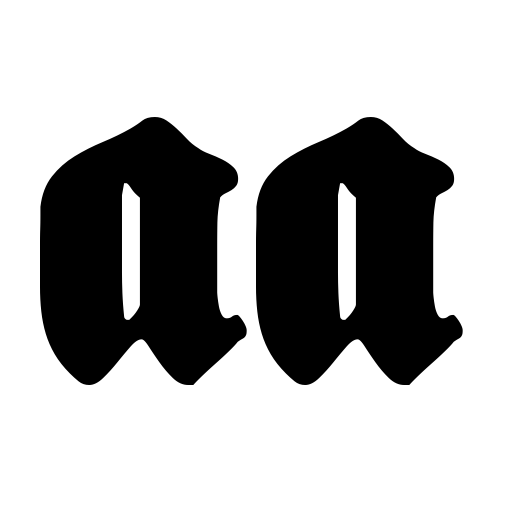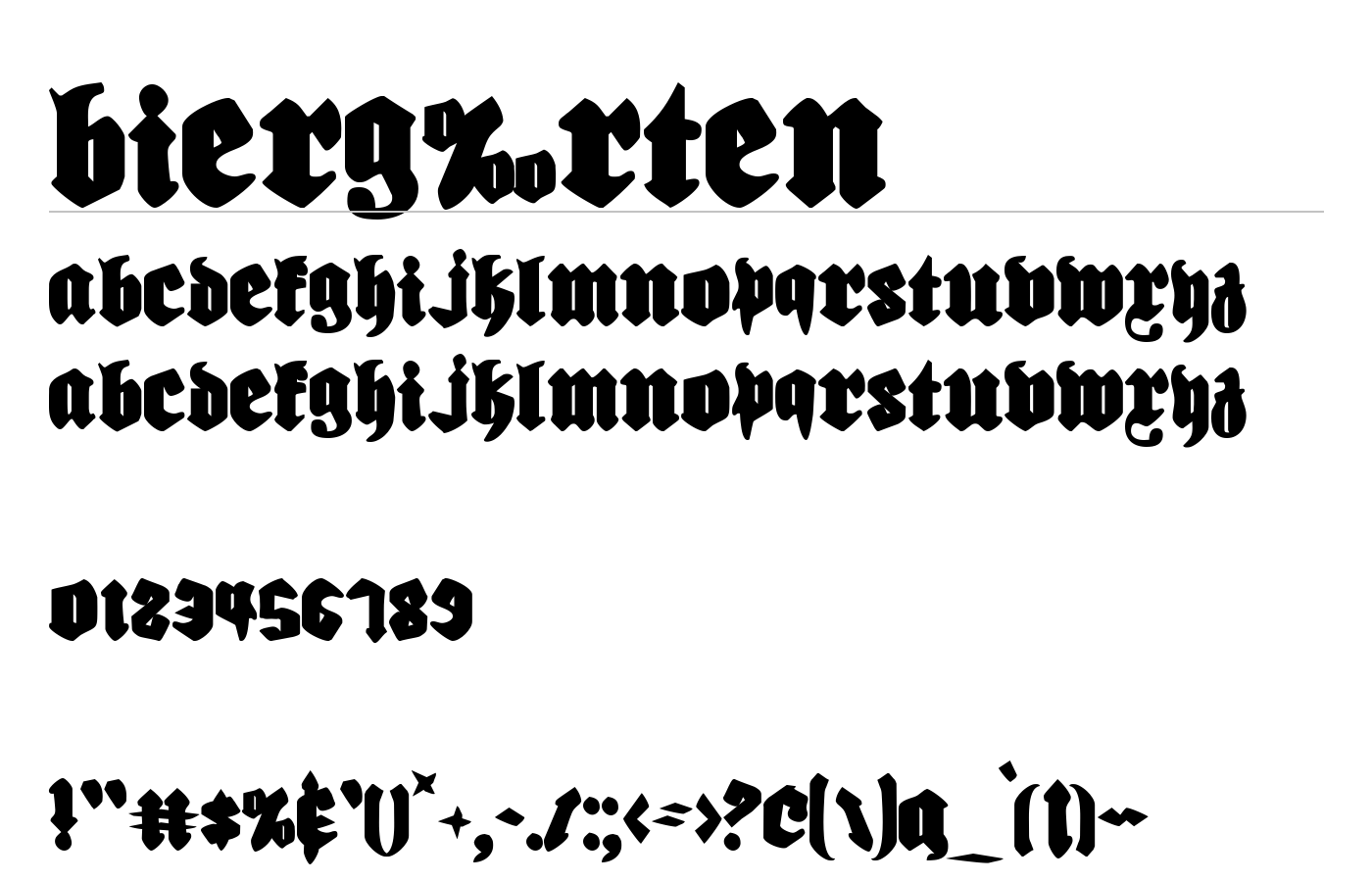
Biergärten is a bold, blackletter-style font with dense, angular letterforms and strong, sharp edges that evoke a traditional Gothic feel. Its compact width and consistent heavy weight make it ideal for eye-catching headlines or branding that seeks a vintage, medieval, or old-world vibe. This font works well in designs related to beer halls, festivals, or any project wanting to convey a sense of heritage and bold character.
Biergärten Font